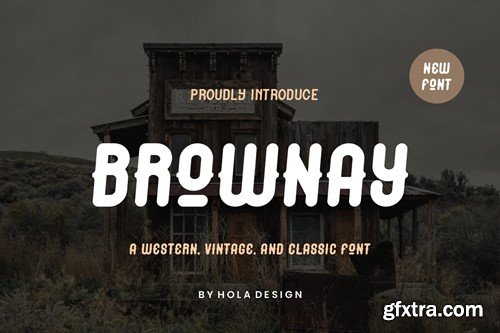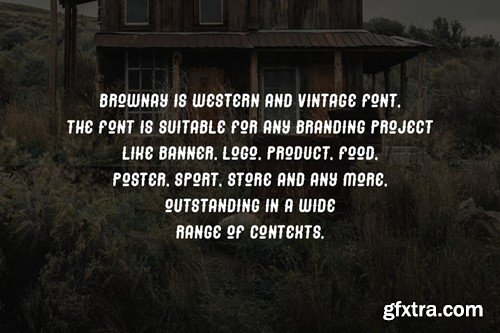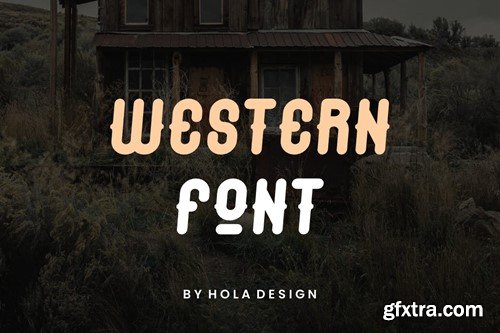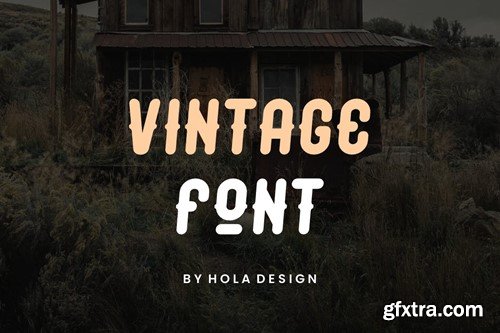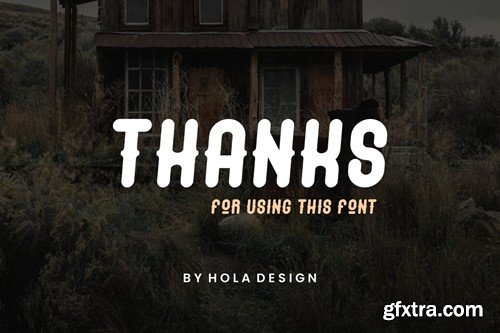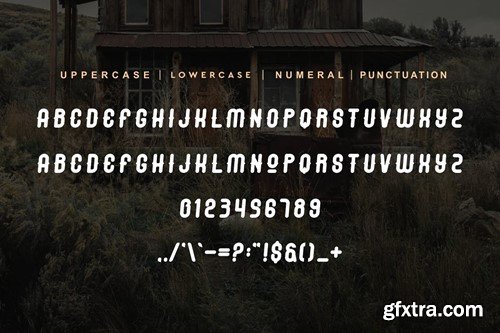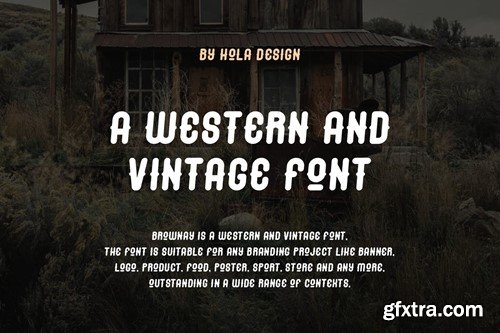
布朗雅 - 西方及复古字体 Q2JQG7X
Brownay - Western & Vintage Font Q2JQG7X
Brownay - Western & Vintage Font
Brownay - Western & Vintage Font Font is unique . Ready to use for your design like labeling, movie sceen, poster, movie title, gigs, album covers, logos, and much more.